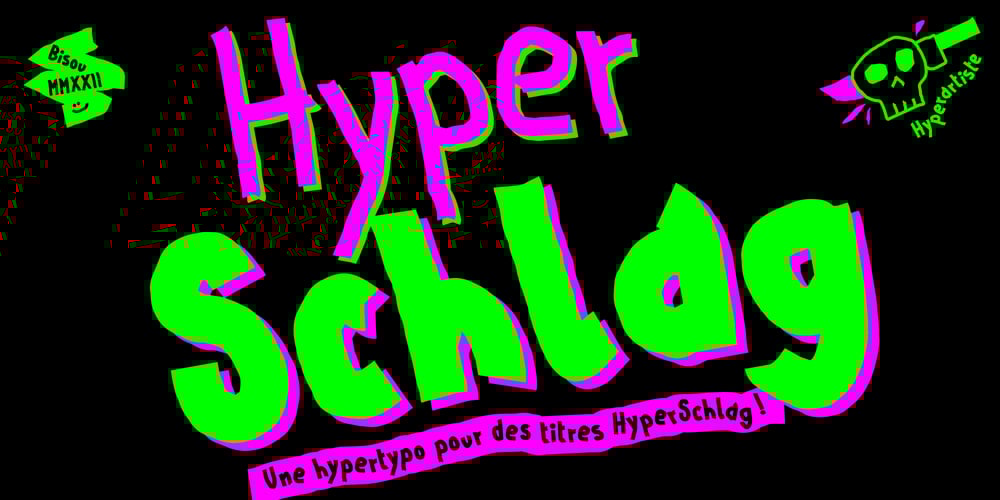
Hyper Schlag
Hyper Schlag font
Hyper Schlag Font Family was designed by Mathias Antonietti and published by Bisou. Hyper Schlag contains 3 styles and family package options. Made in La Chaux-de-Fonds (Switzerland), Hyper Schlag is born while the designer drinks a beer with friends. One of his fellow beverage partner wears a sweatshirt written in embroidery. The text is quite clumsy, at least this is what he saw. This is how the most spontaneous font ever designed by Bisou is born.Hyper Schlag is thought from ground up to give a strong feeling of friendliness. Clumsy, naive, playful, this handwriting font is best suitable slogans of sweet revolution. It works perfectly with short texts, punk music album covers or underground film festival posters. Be aware that it is not recommended for police stations or administrative office signboard.